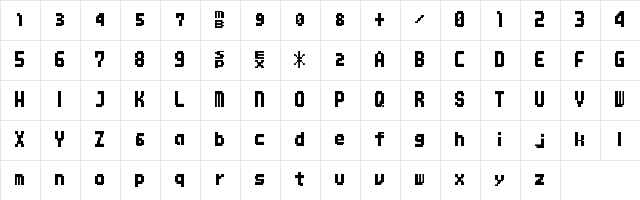
MMBNThick Regular Free Font
MMBNThick Regular
Designer: Metroid345
Complete MMBNThick Regular glyph index. Displaying only characters natively supported by MMBNThick Regular font.
Design Context for MMBNThick
MMBNThick is a composed and adaptable typeface that performs quietly and consistently across a wide range of design contexts.